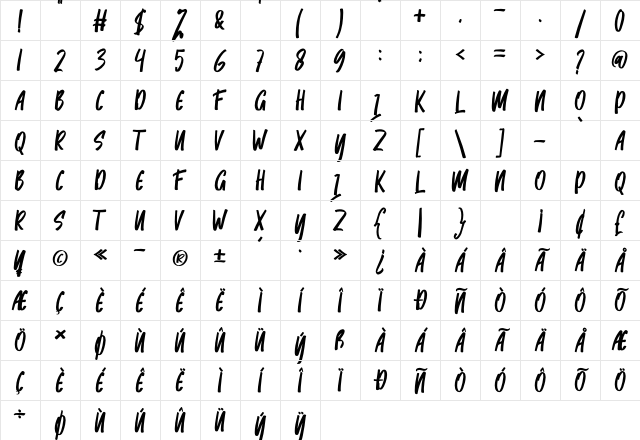
Samire Regular Free Font
Samire Regular
Designer: Skiiller studio - M irfan mahmudin
Design Context for Samire
Samire is a composed and adaptable typeface that performs quietly and consistently across a wide range of design contexts.